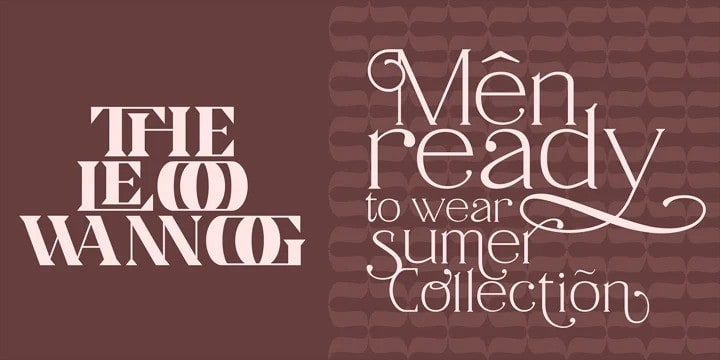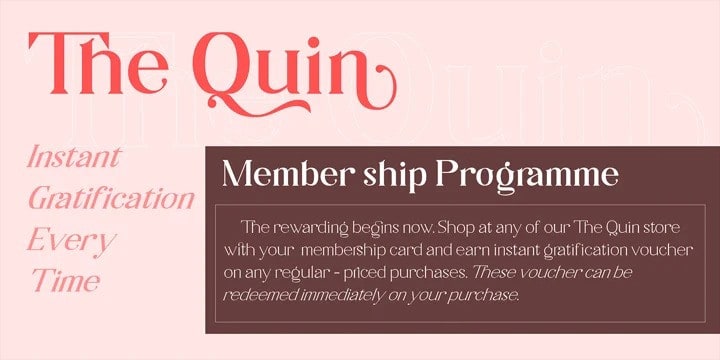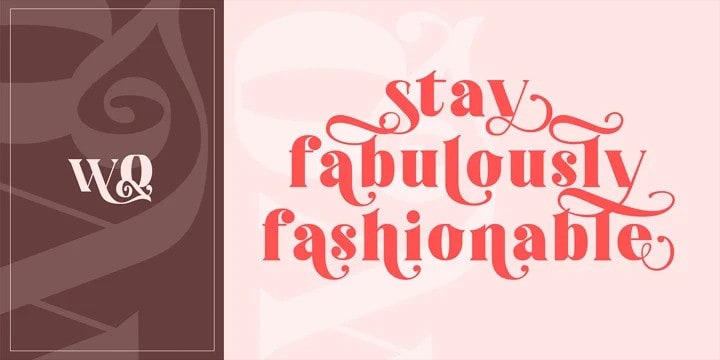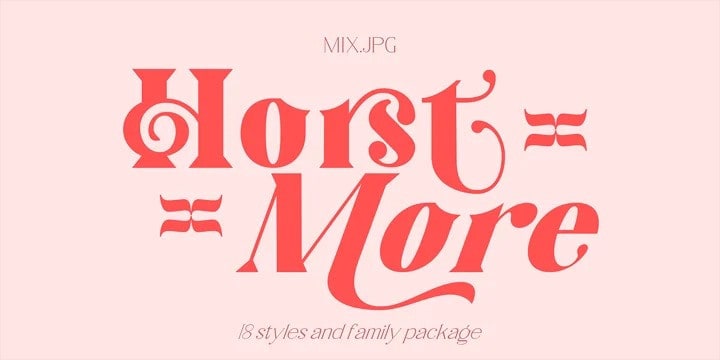
Horst More Serif Font Demo
Introducing Horst More Serif Font, all fonts has unique features with lot of alternates & ligatures to impressed your customers. Horst More is designed and shared by MIX.Jpg. It’s a retro soft serif typeface comprising 18 fonts. It can handle most typographic applications from branding to body copy with its range of weights and inherent legibility. Whatever you type will have a friendly message, but it really comes into its own when you start applying some of the additional ligatures and alternates that are built into this type family. You’ll soon be creating distinctive typographic compositions that are pleasing to the eye.